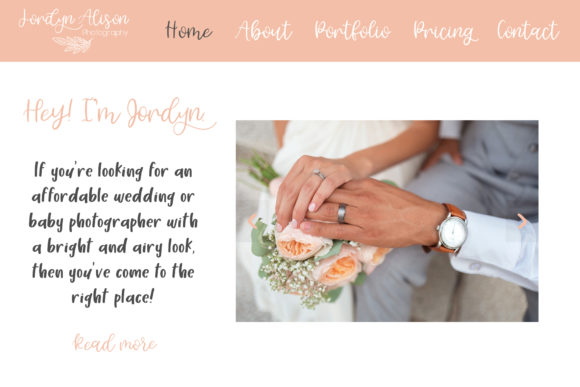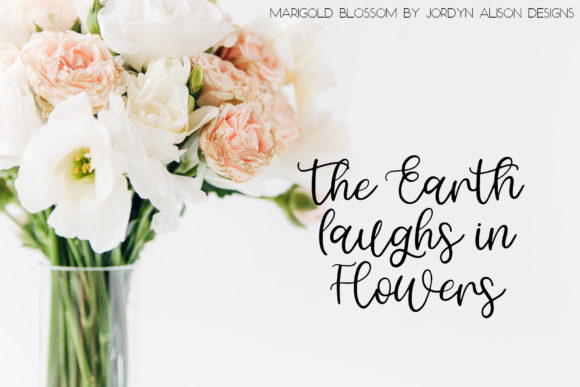
Marigold Blossom Font
db-ku.com - Script & Handwritten -- Marigold Blossom is a sweet, soft hand-lettered script that pays homage to classic calligraphy fonts. The gorgeous characters make it the perfect font for creating stunning crafting projects. Marigold Blossom comes packed with 90 alternates, which will allow you to add a decorative touch within seconds.